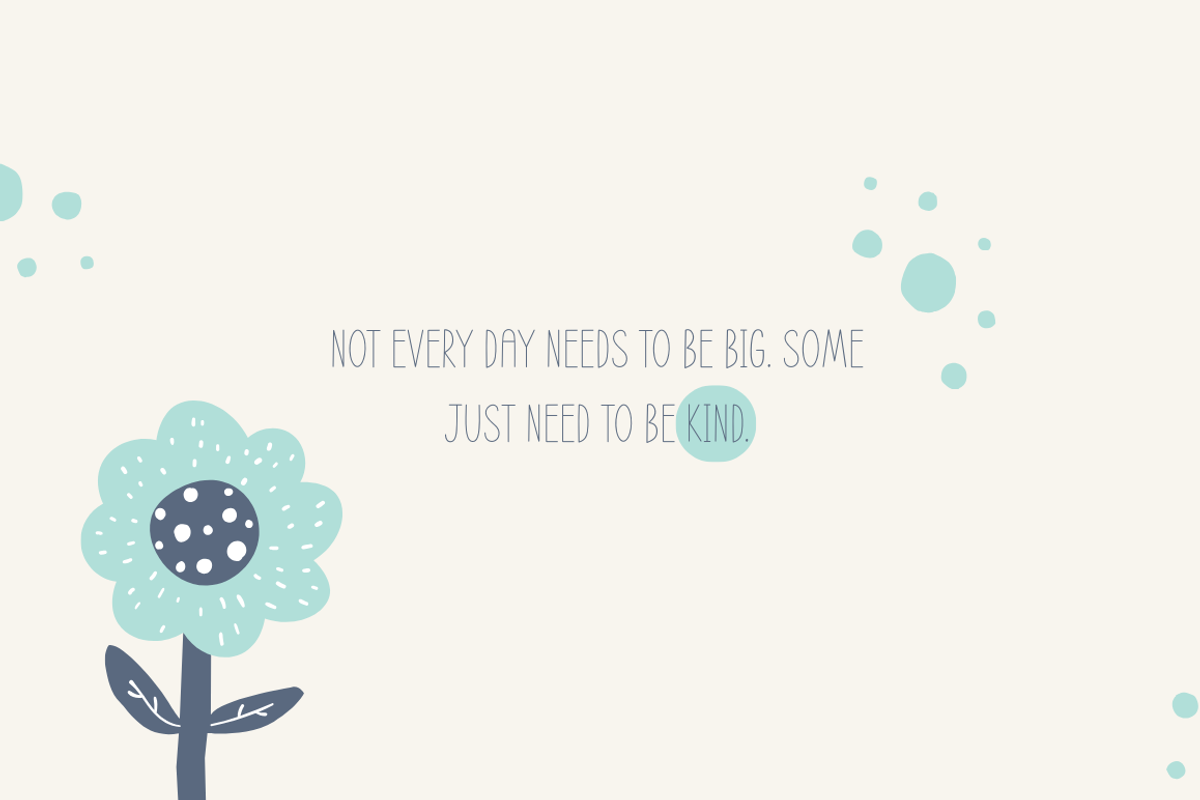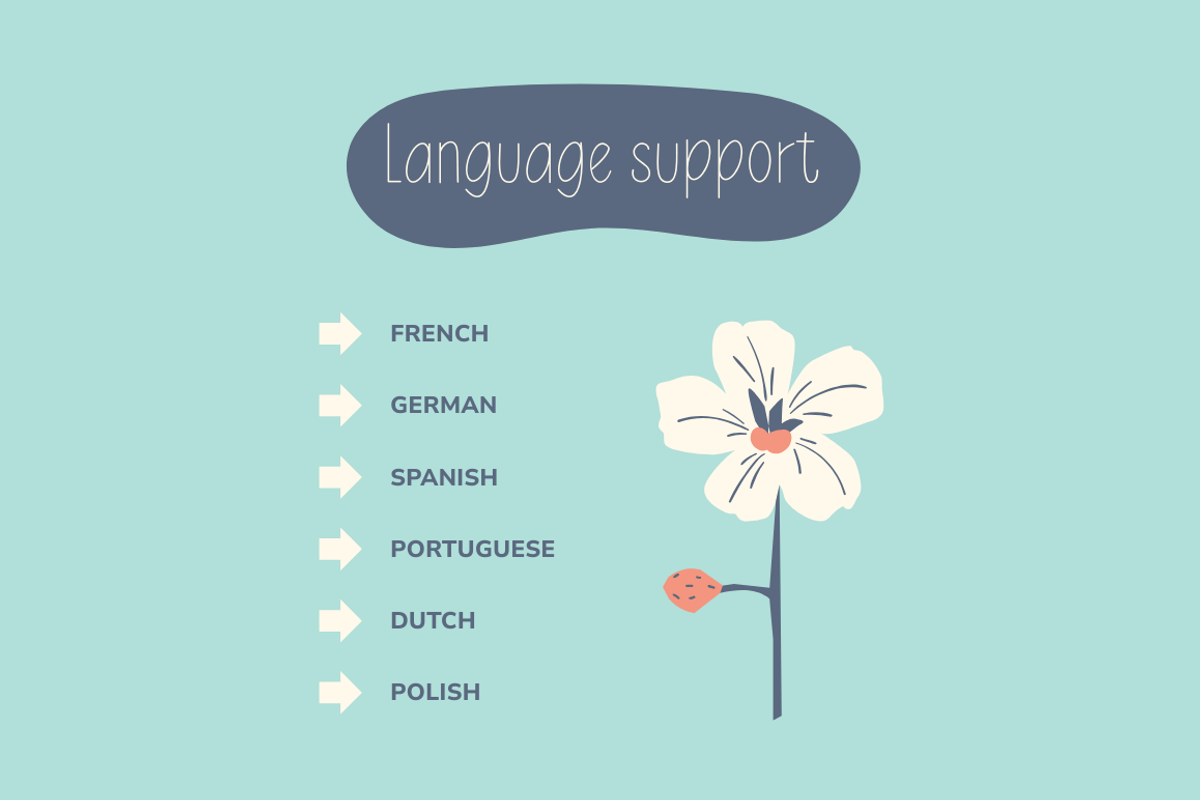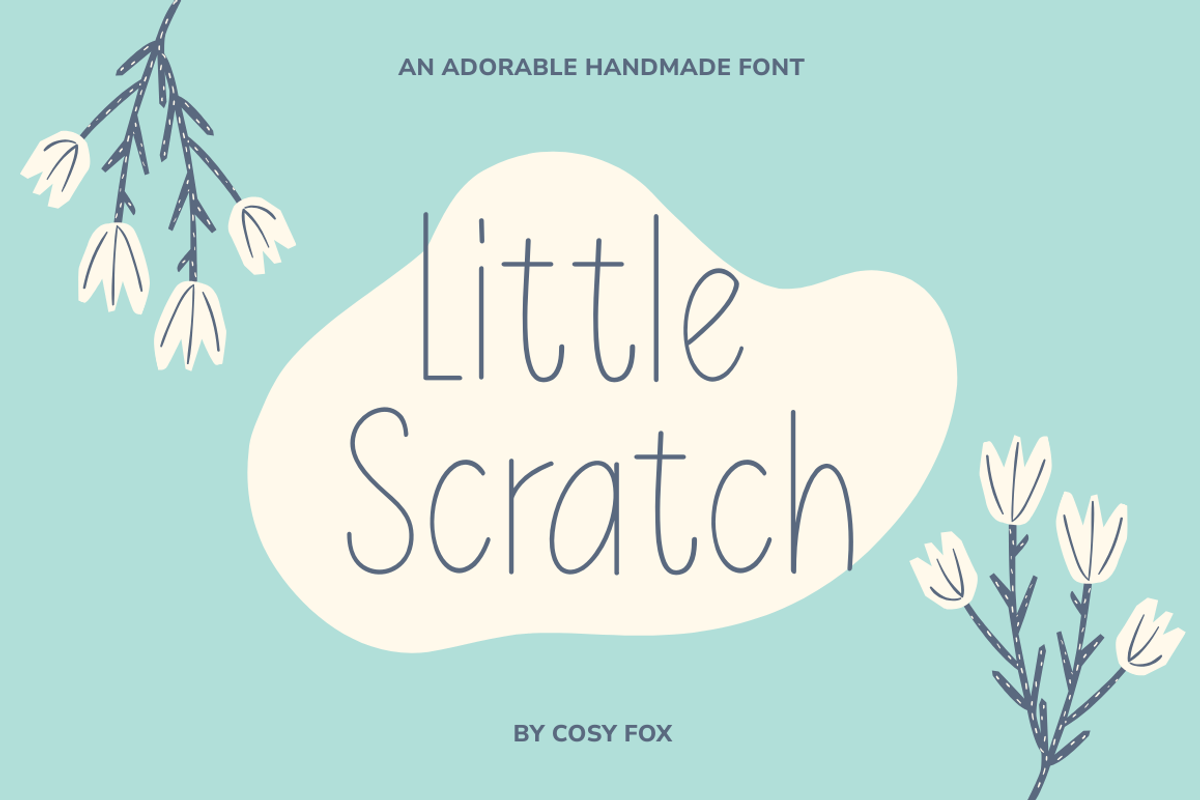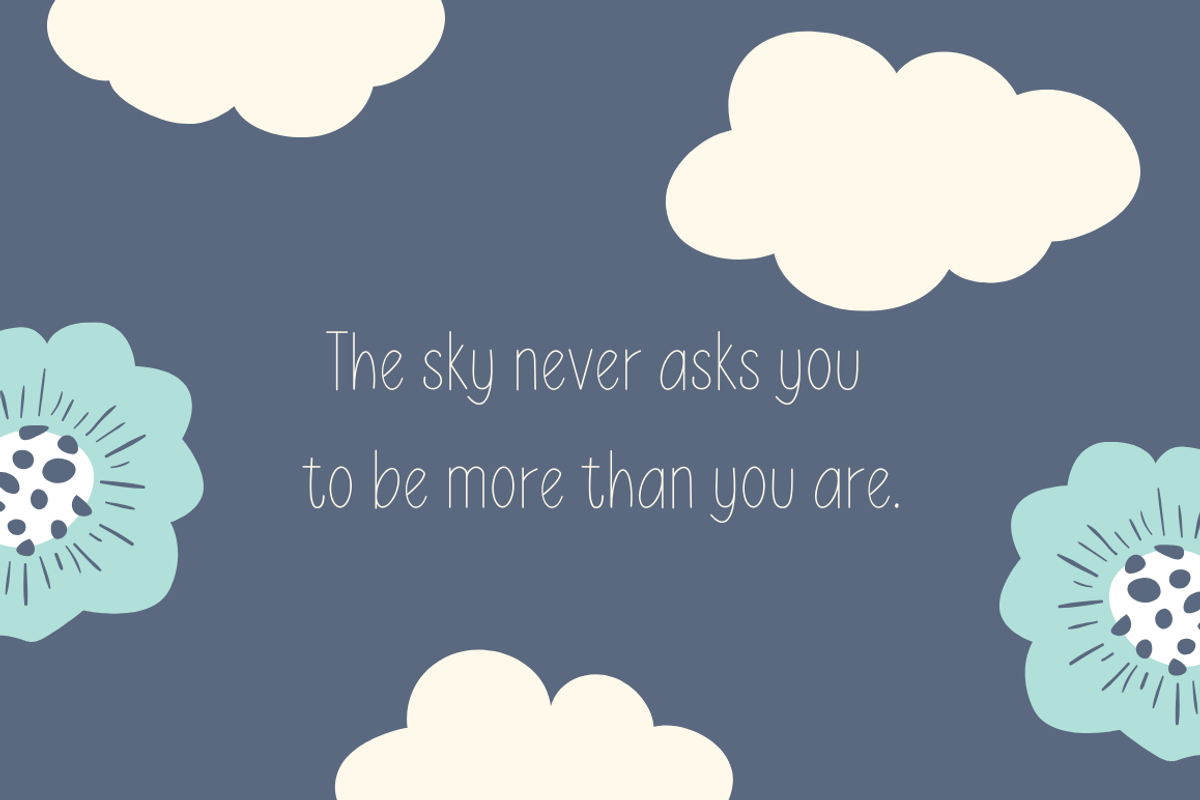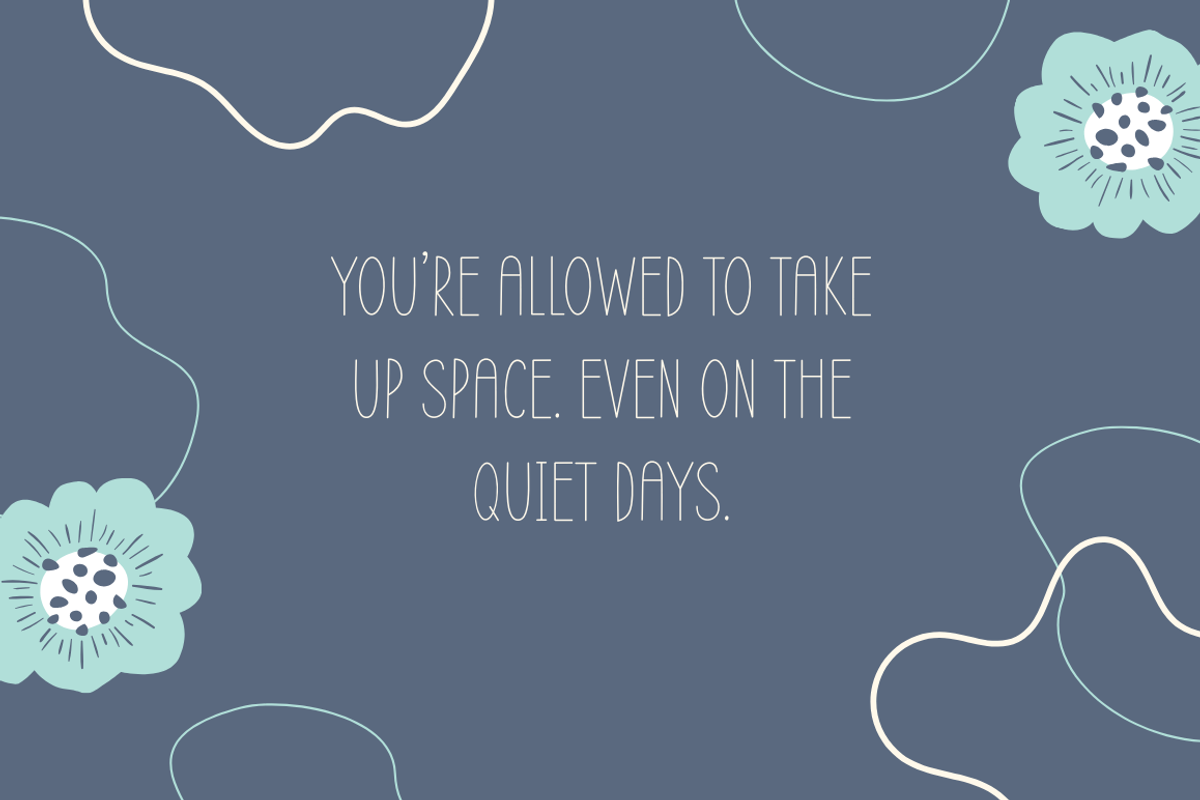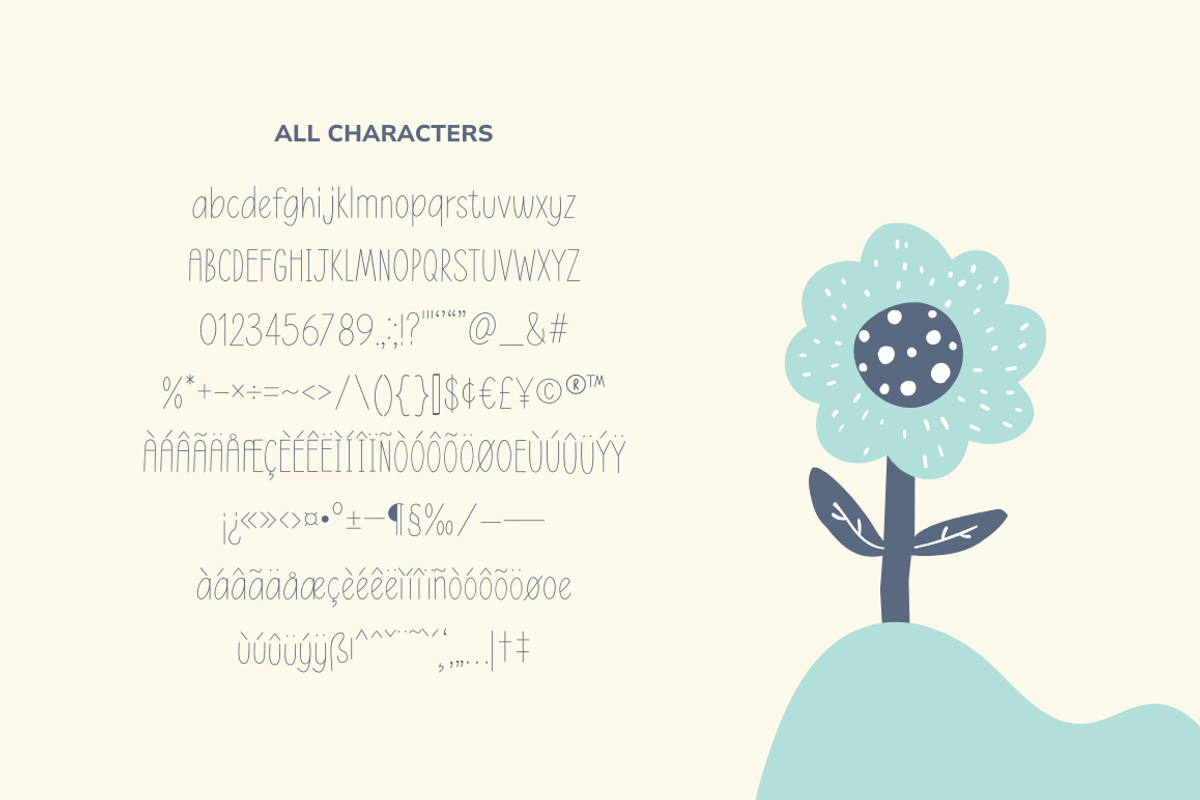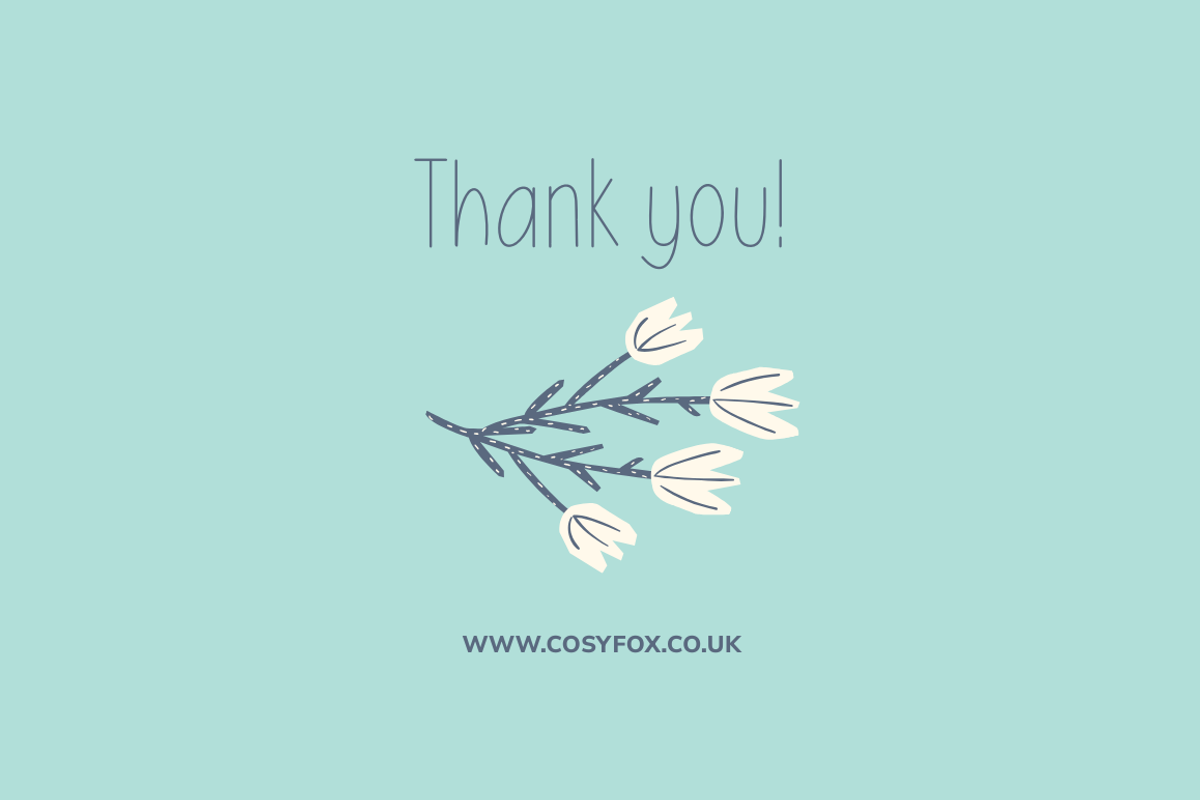
Little Scratch Thin Font
Little Scratch is a delicate, tall handwritten font designed to feel as natural as your own quiet thoughts. With gently imperfect lines and soft monoline strokes, it’s the kind of typeface that adds heart to every project, without ever trying too hard. Designing a printable planner? Jotting down affirmations? Or simply adding warmth to a brand? Little Scratch gives your words a touch of calm, care, and charm.
Ideal for journaling, quote art, or slow-living brands, this font is made to feel like home on the page. Compatible with Canva and Procreate.
Language Support
French, German, Spanish, Italian and Portuguese.